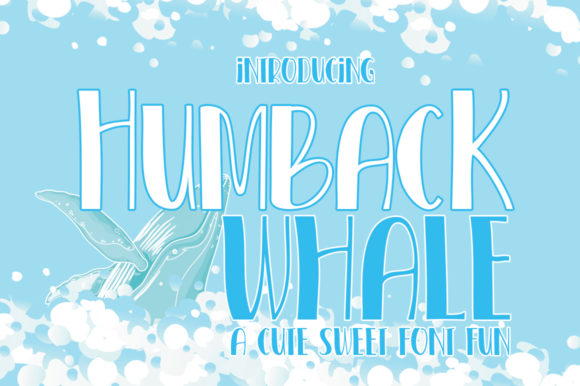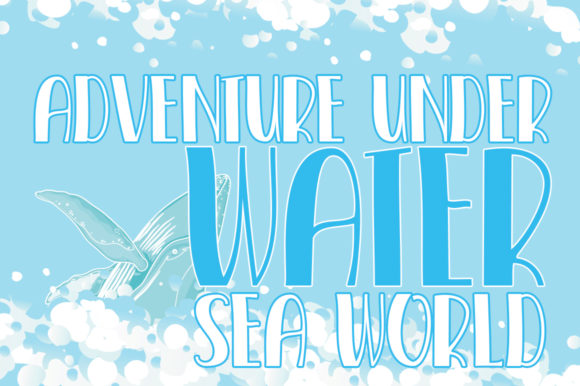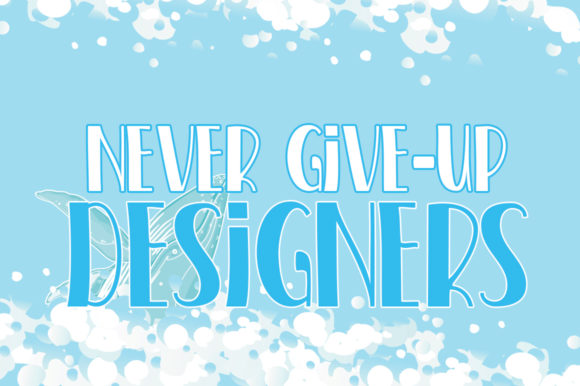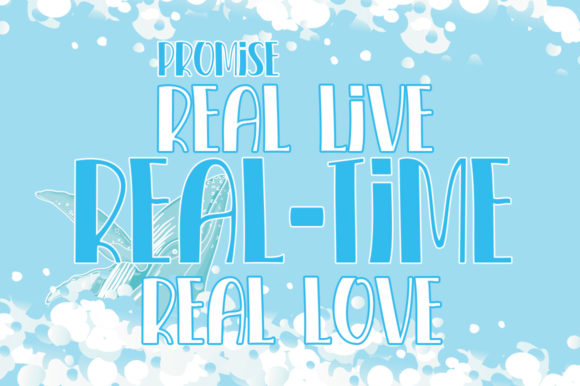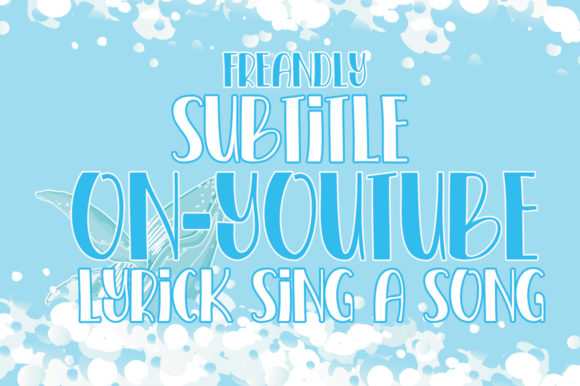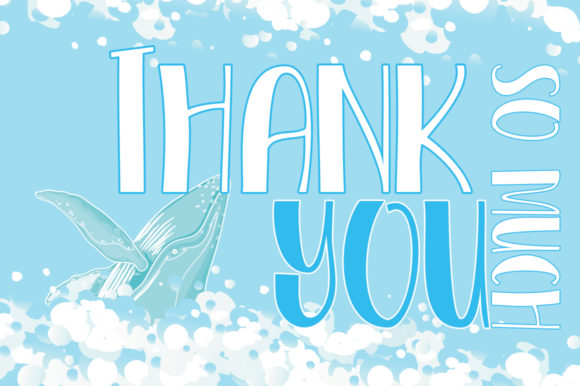
Humback Whale Font
About Humback Whale Font
Humback Whale is an all caps handwritten font. This enchanting font will turn any creative idea into a true standout. Get creative with its unique playfulness, and use it to brighten up any crafting project!